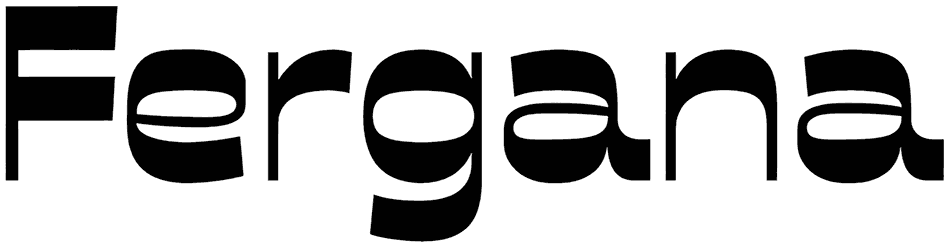
Fergana Font
Fergana is one of the Italian-style reverse contrast fonts, which is an interesting trick to create an unusual but eye-catching structure. This retro font is rarely used for body text and is mostly used for headlines, po…
Fergana is one of the Italian-style reverse contrast fonts, which is an interesting trick to create an unusual but eye-catching structure. This retro font is rarely used for body text and is mostly used for headlines, posters, and cartoons.
This asymmetric and somewhat childish shape makes your designs take on an informal look and can convey your message to others without any cover, and numbers 0, 4, and 8.